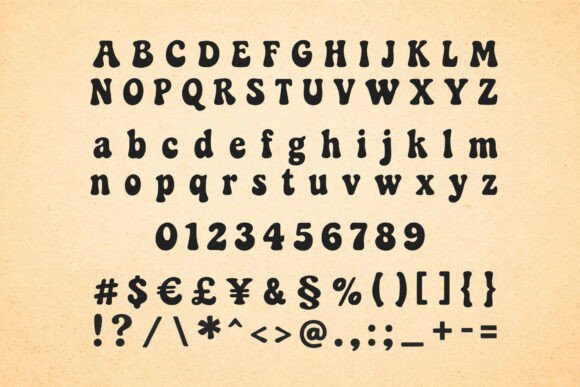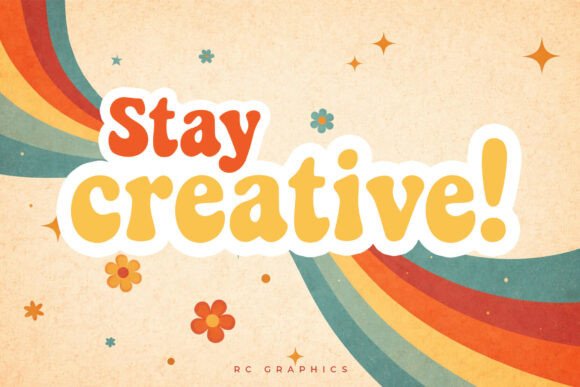
Introduction to Groovy Deluxe Font
Looking for an instant shot of retro vibes.
Groovy Deluxe is a groovy, vintage-inspired typeface, straight out of the golden age of the 1970s, funk, disco, and psychedelic culture Take a trip back to the psychedelic seventies with Groovy Deluxe , a retro-inspired display font that celebrates fluid motion and โflower powerโ vibes.
Key Features of Groovy Deluxe Font
Why Choose Groovy Deluxe Font?